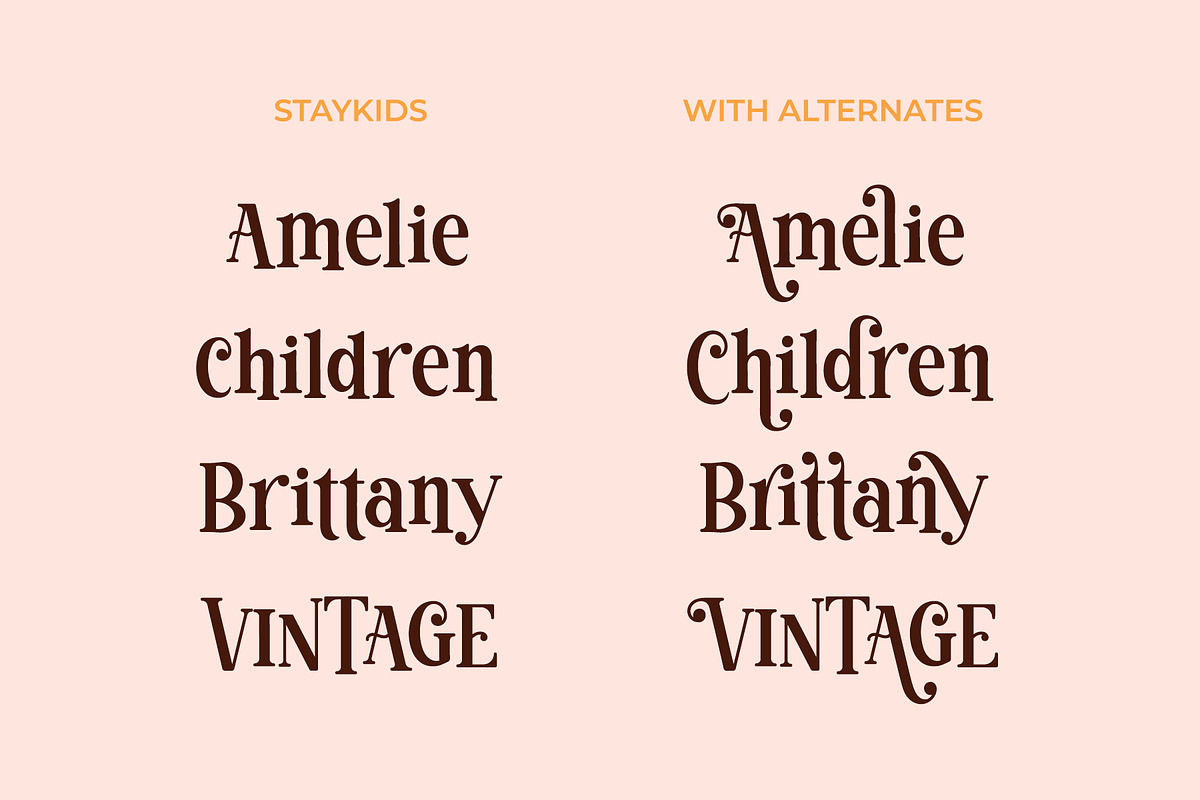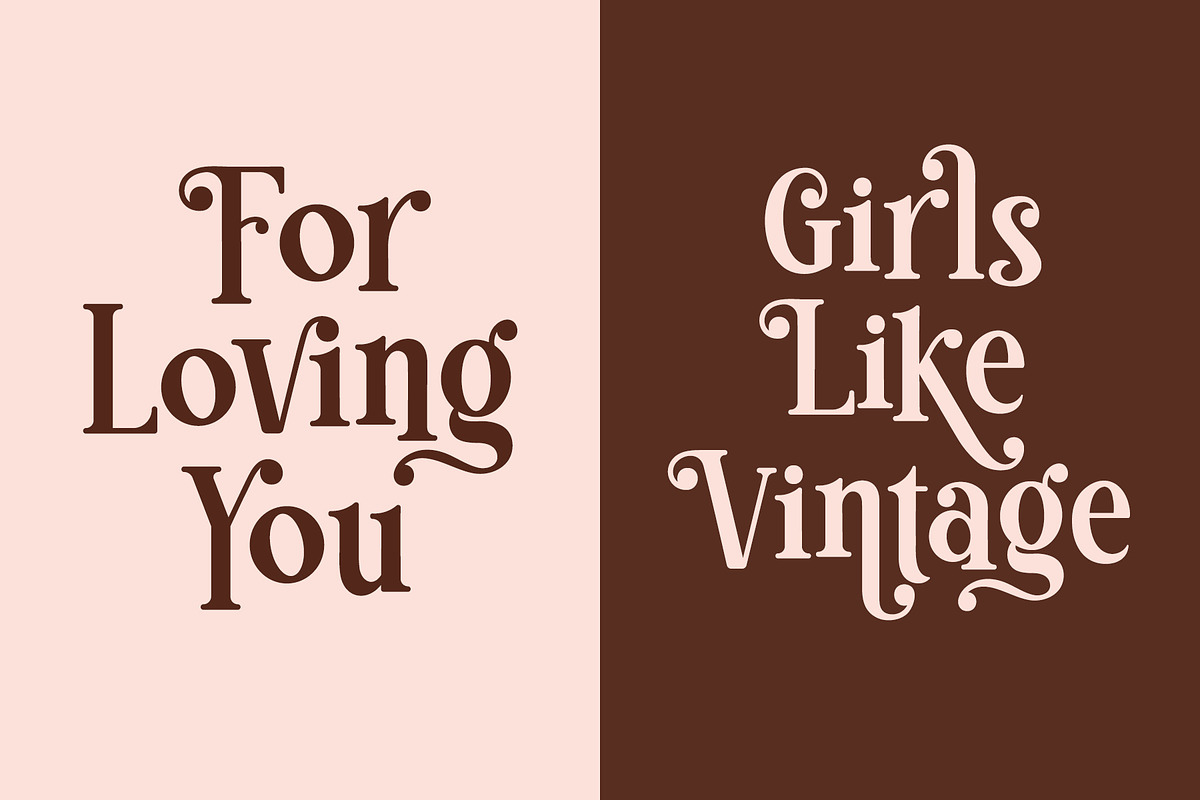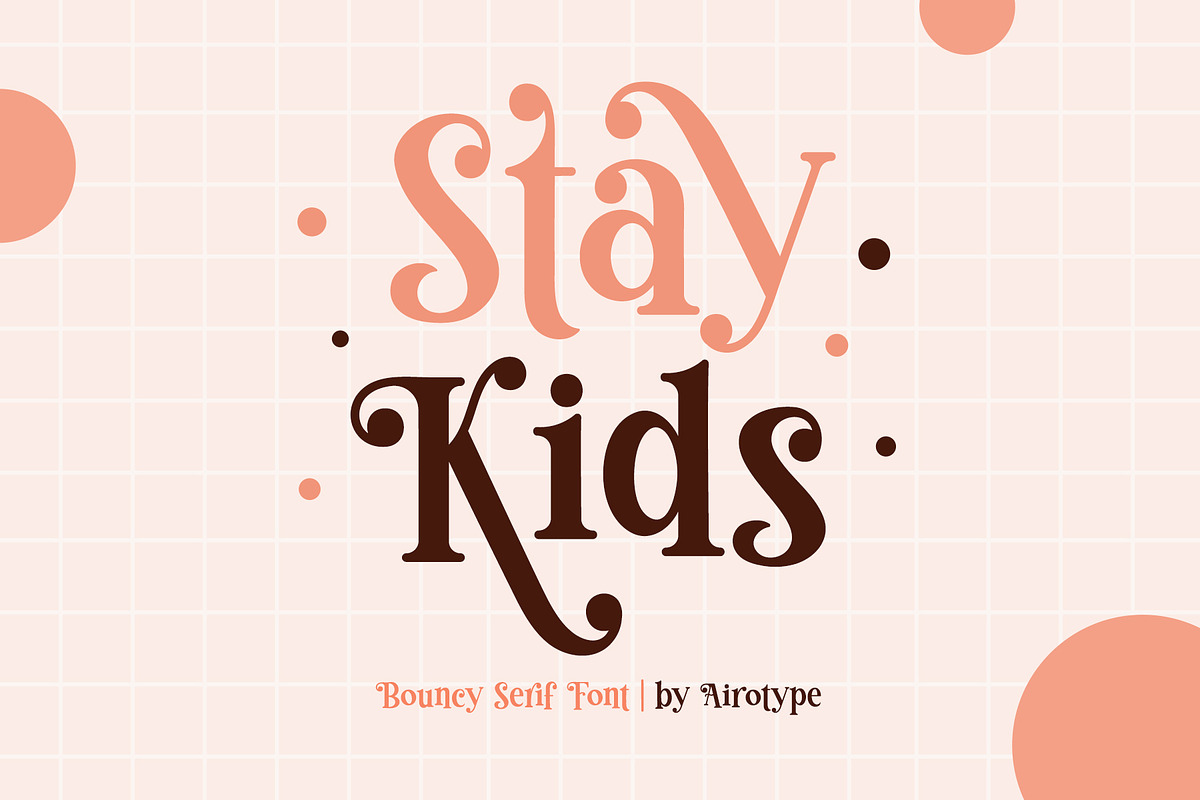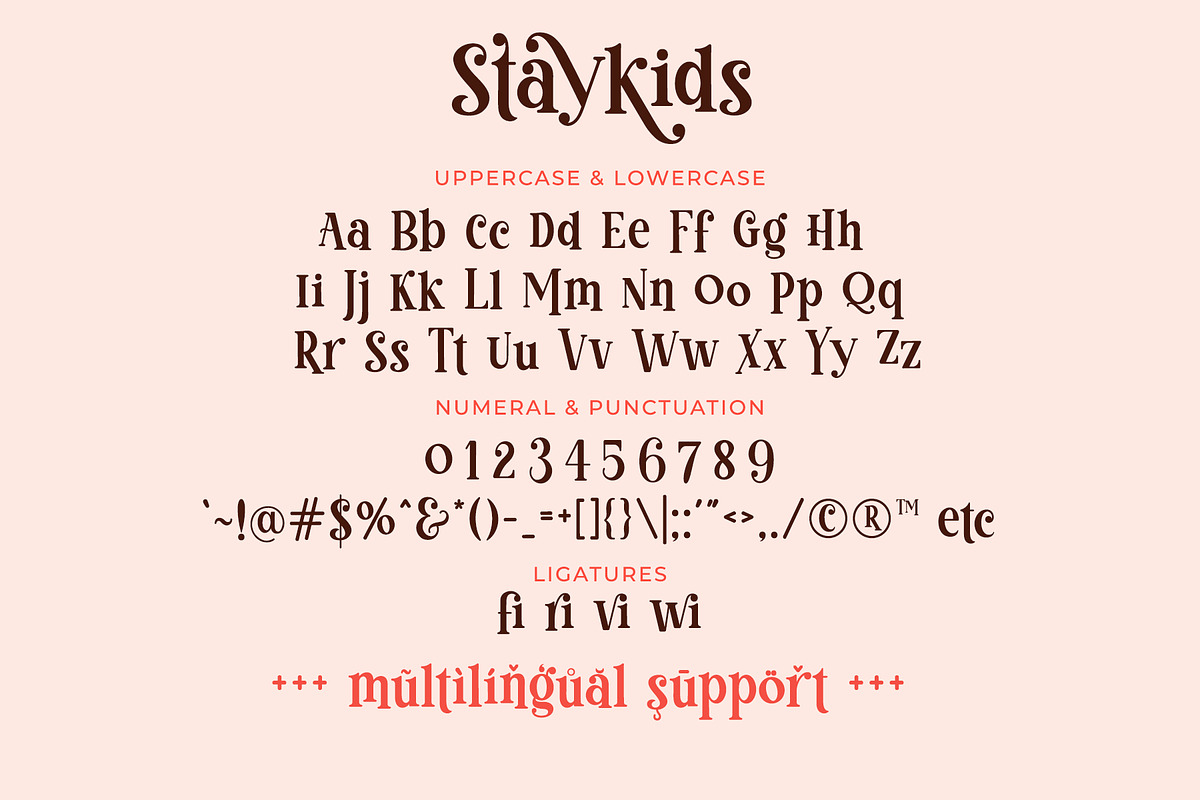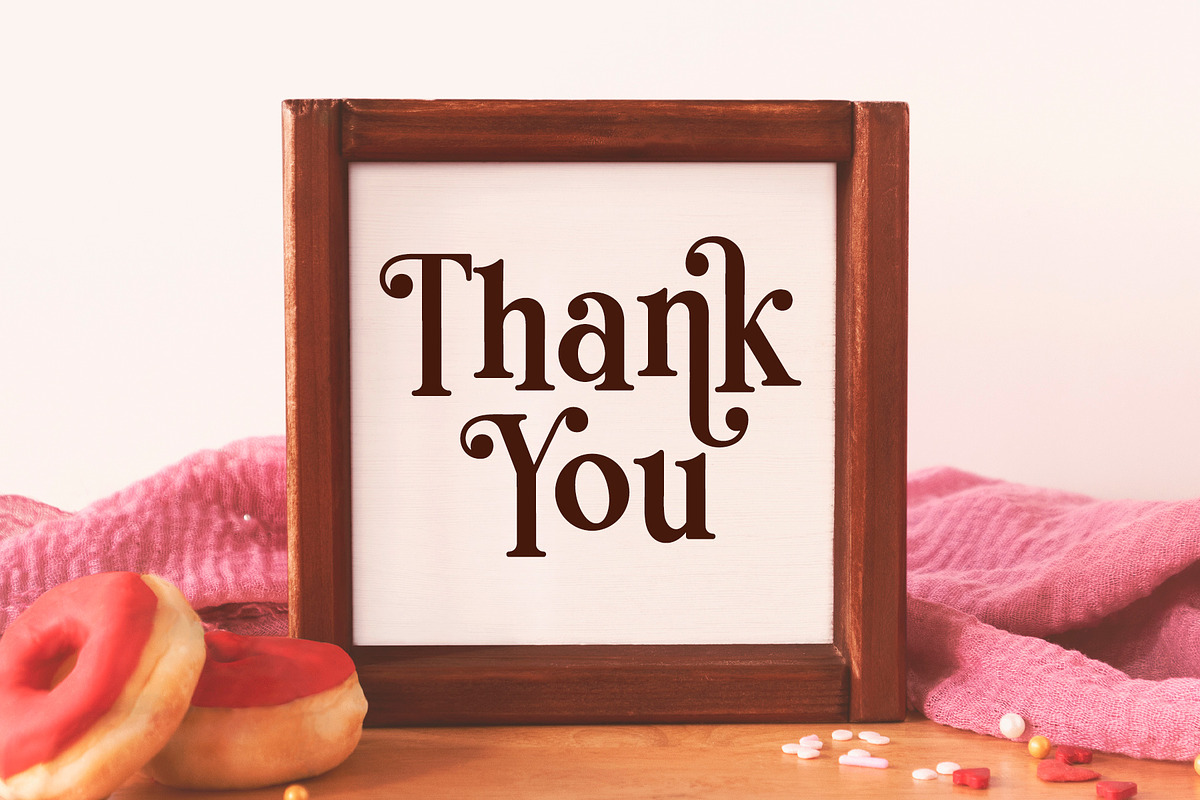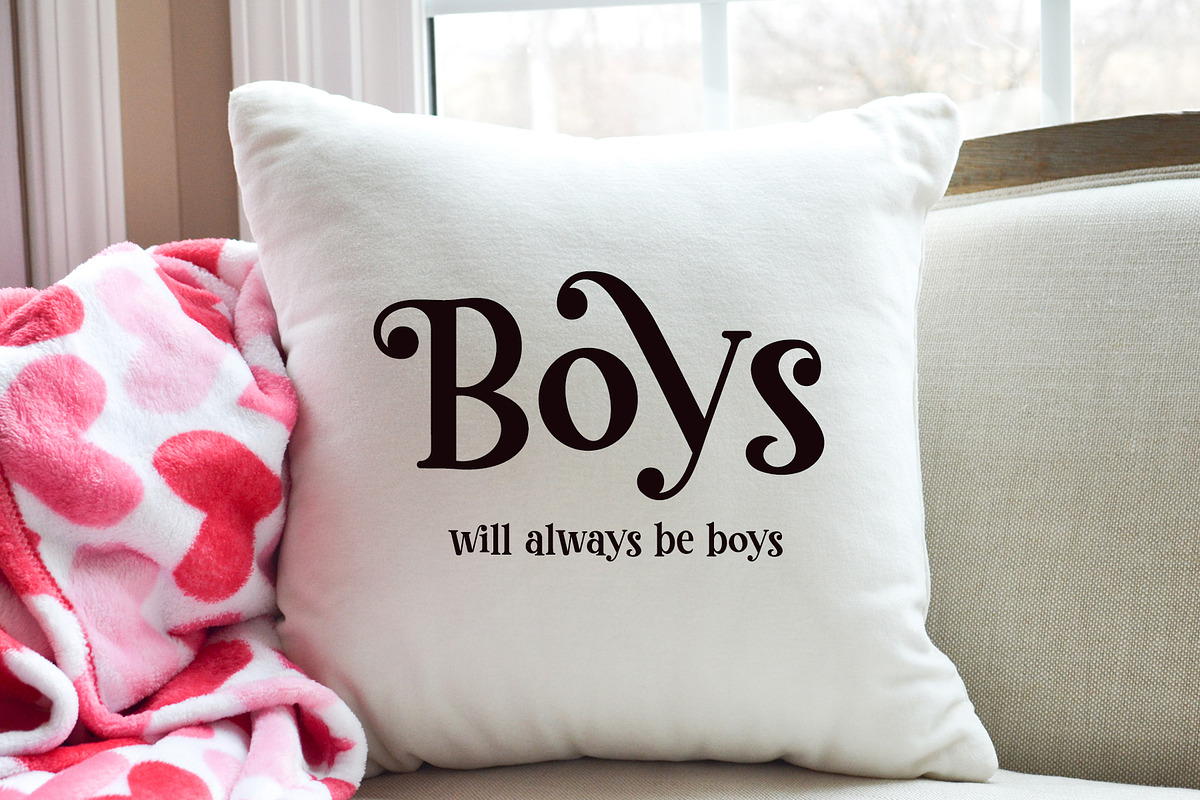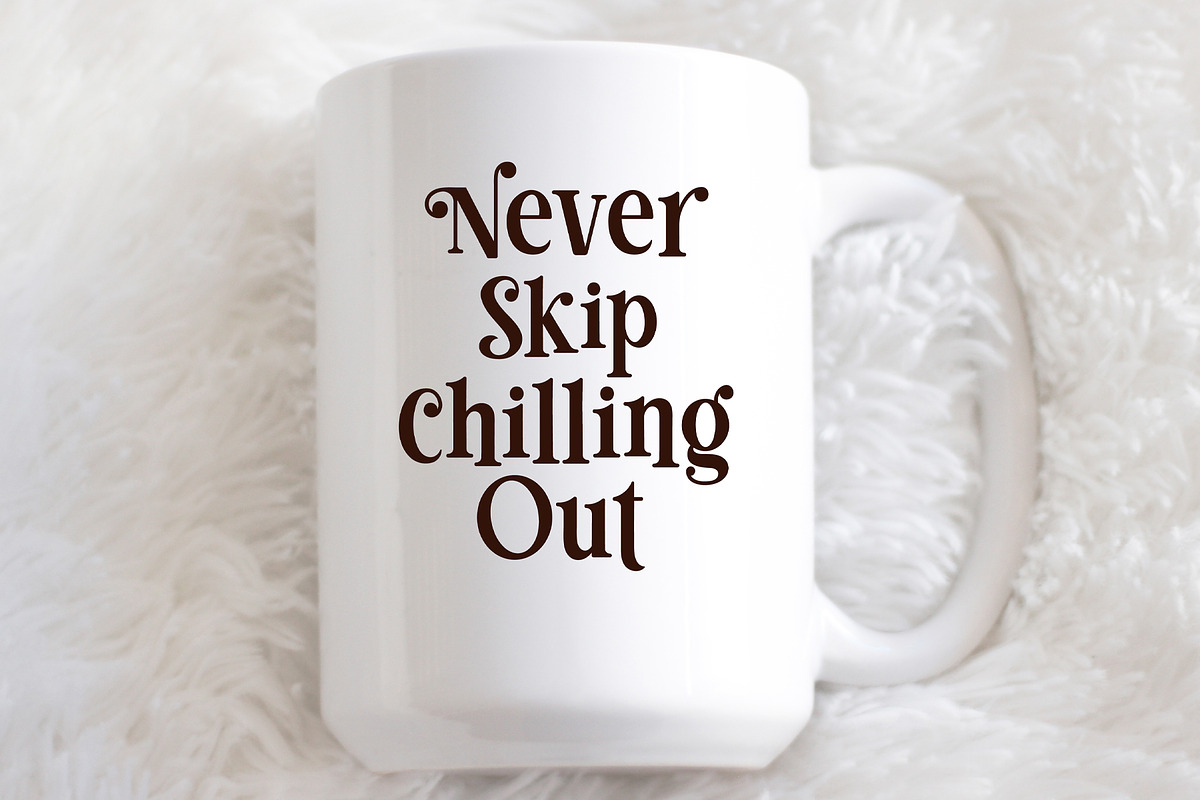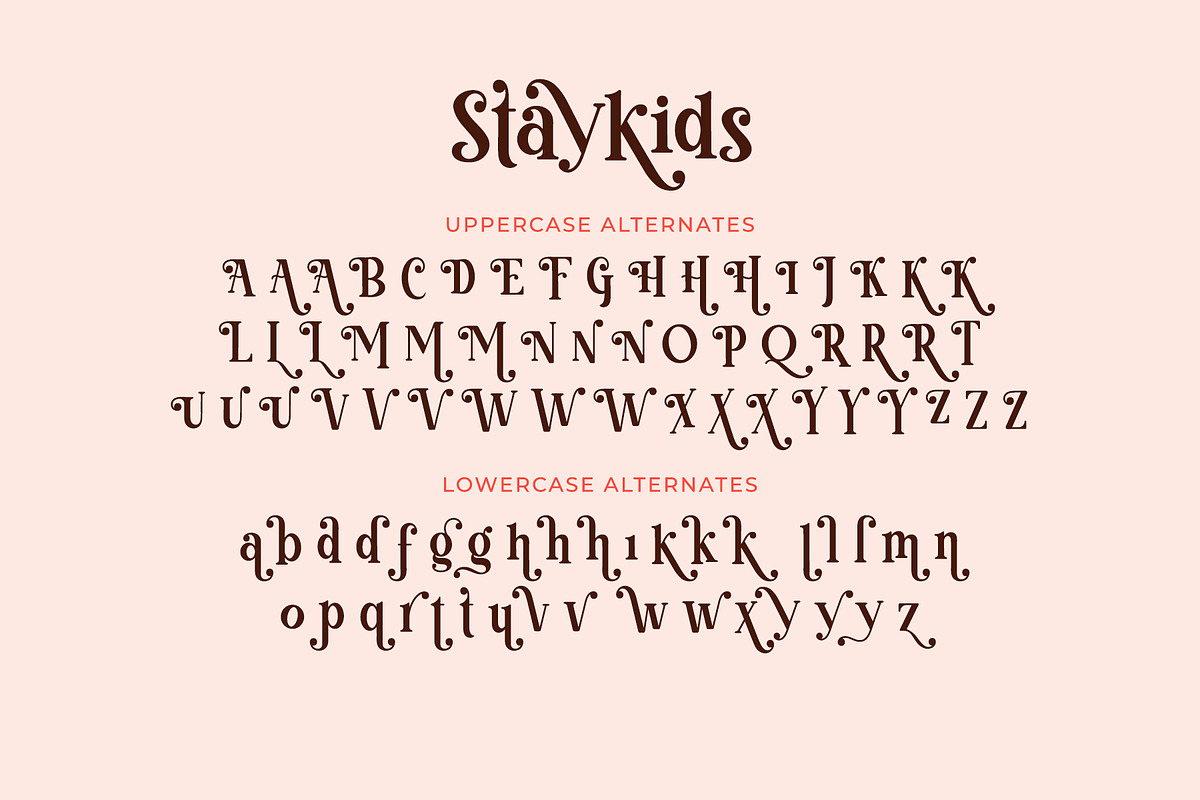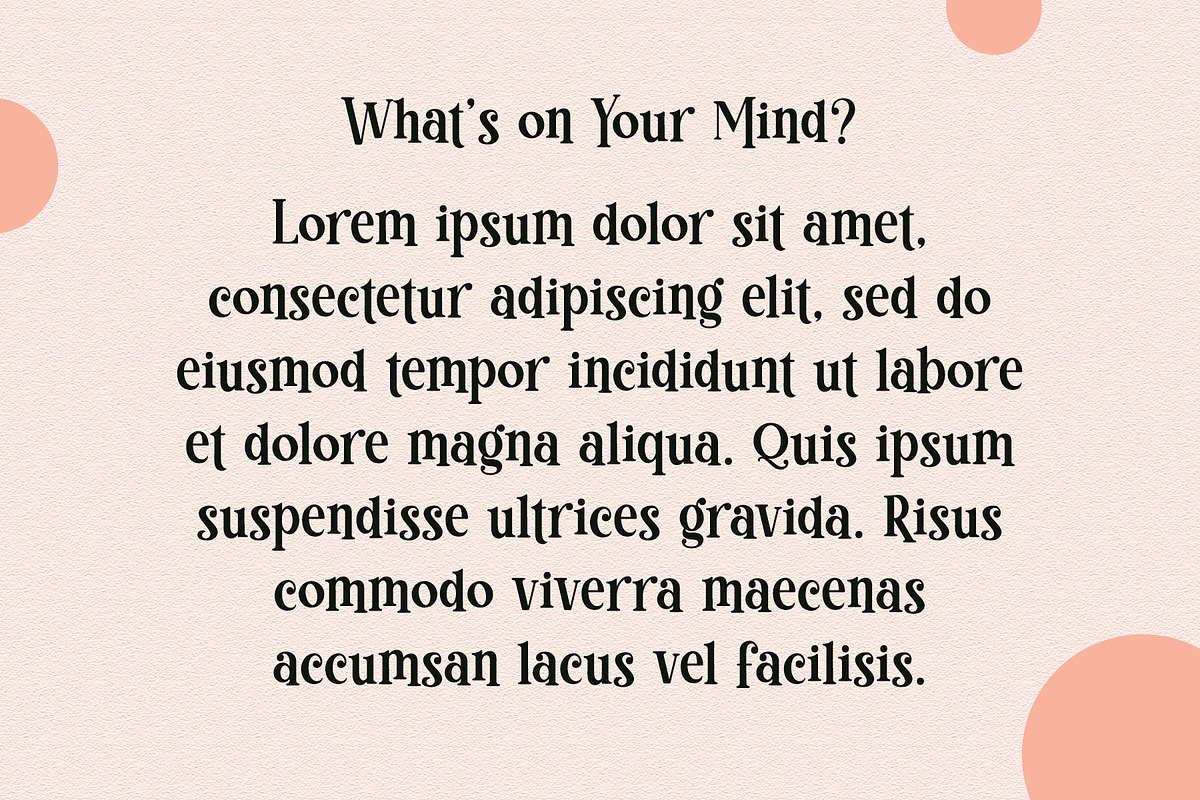
Stay Kids - Cute Modern Serif Font
Stay Kids is cute and playful serif font. This is bouncy and fun with retro and vintage vibes.
This font has extra glyphs/alternates to give more character choices in designing.
This font is lovely font for design with cute and retro touch, such as kids design, back to school, birthday invitation, summer design, quotes, logo, t-shirt design, crafting, sticker, sublimation, and many more.
- Uppercase & Lowercase (with alternates)
- Most Multilingual Accent